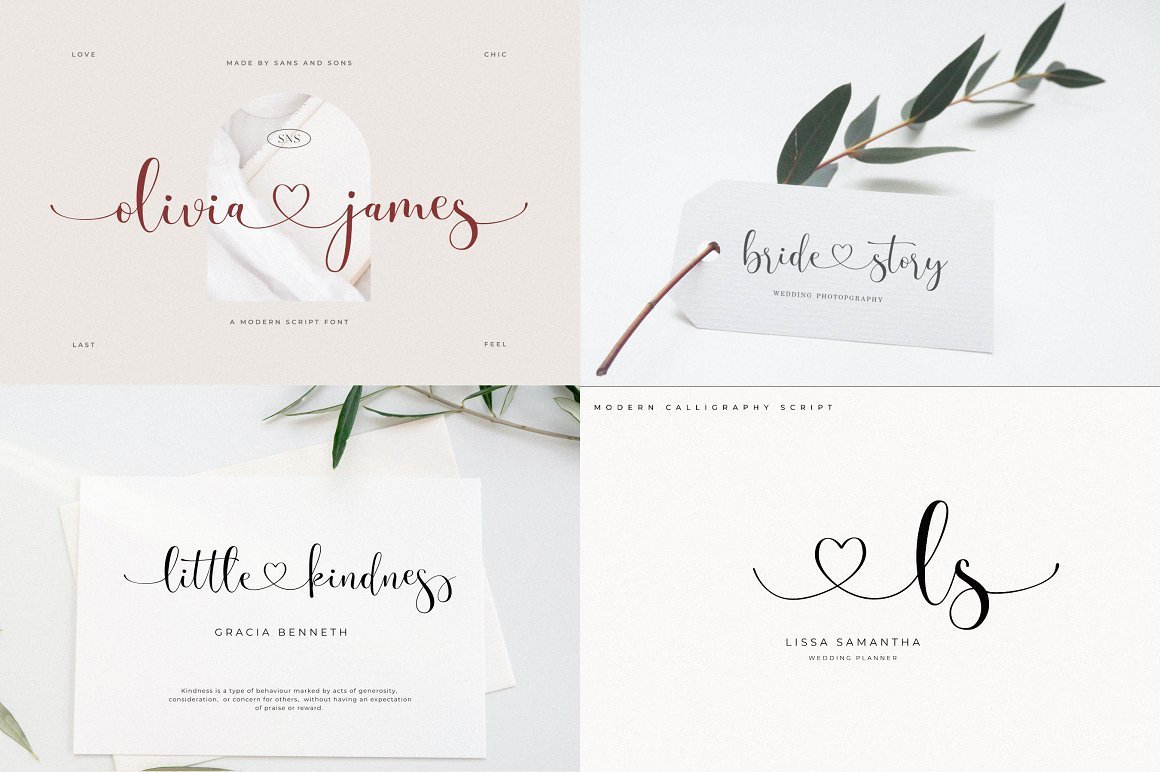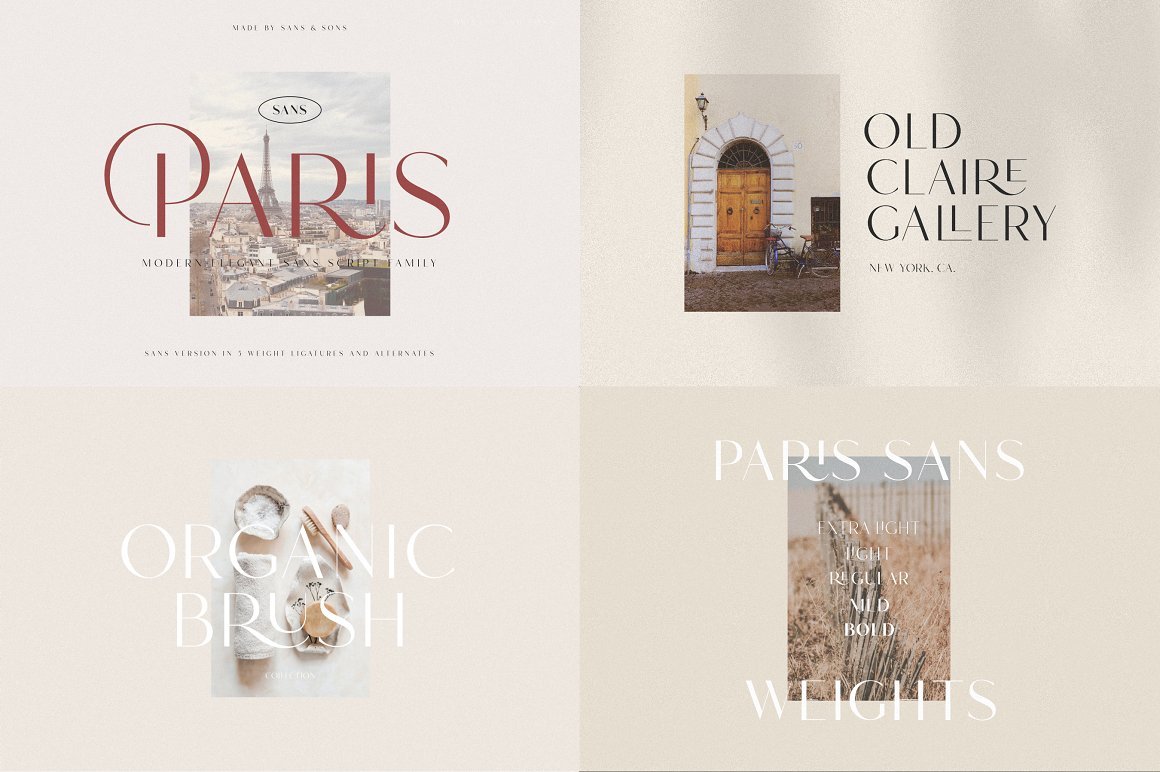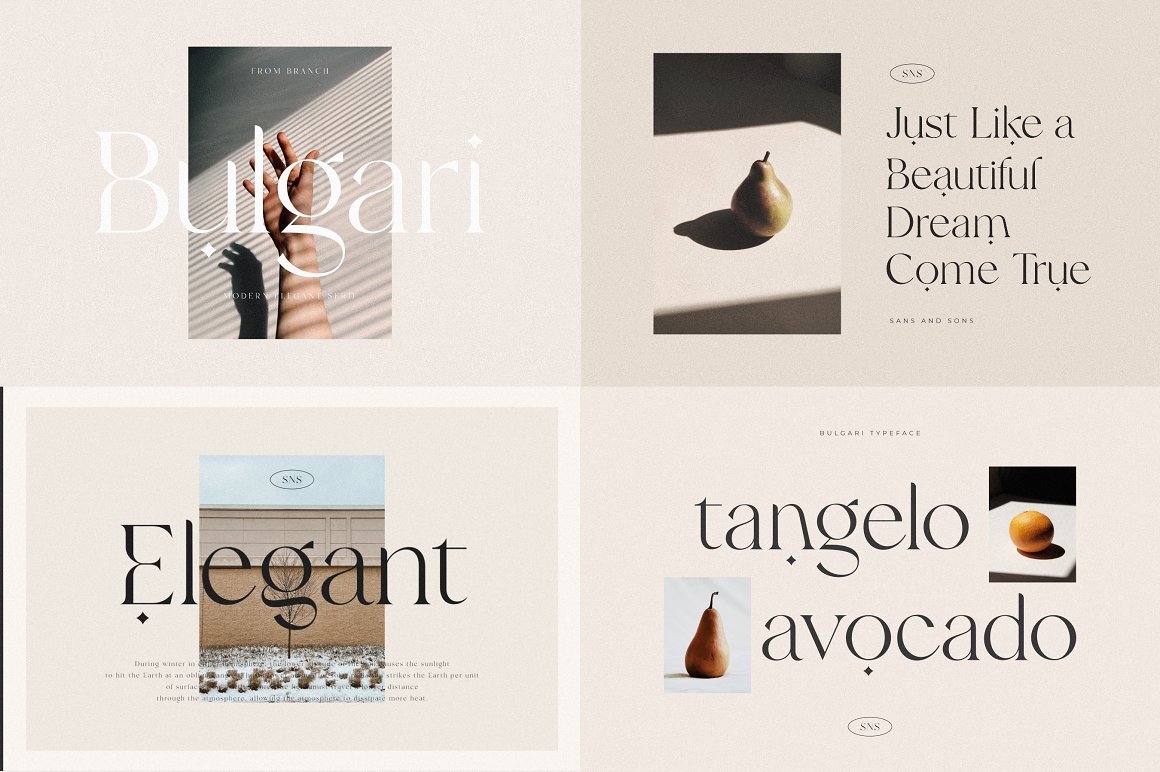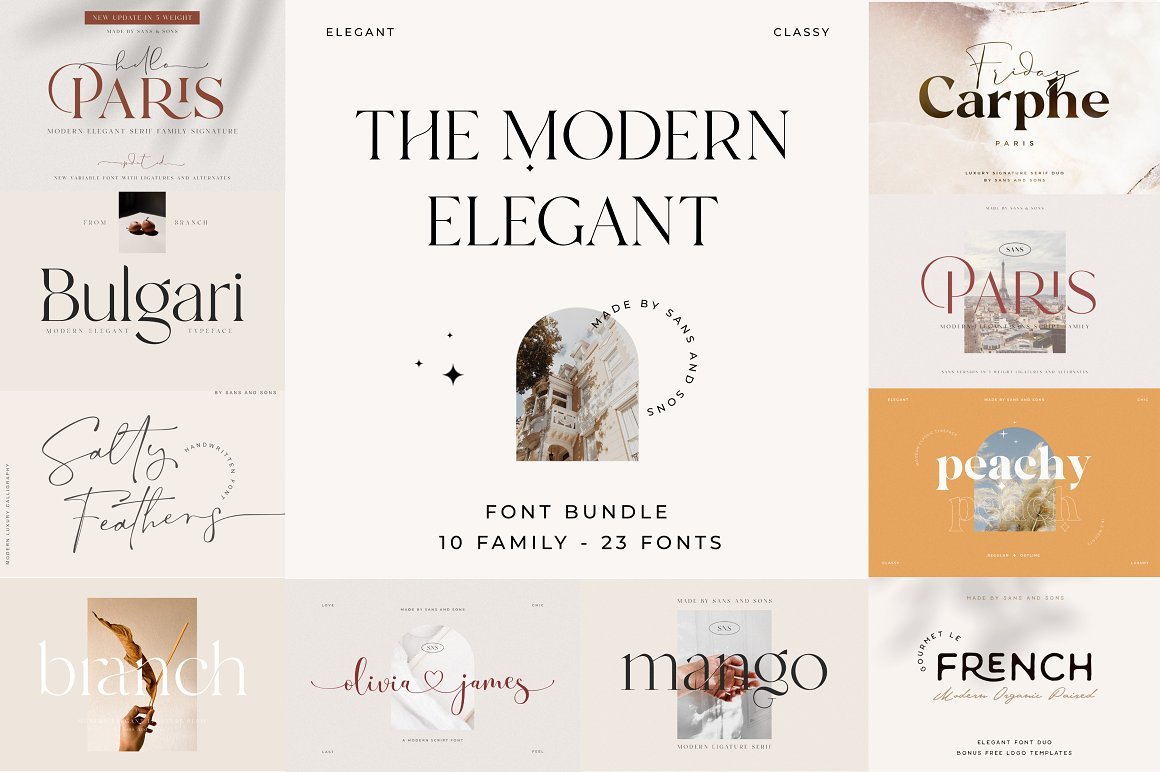
Modern Elegant Font Bundle
The Modern Elegant Font Bundle + Bonus
This bundle contains 23 typefaces including 10 high-quality font families. Our best-selling fonts from Sans Serif, Serif, and Script Font all with modern elegance, and stylish looks.